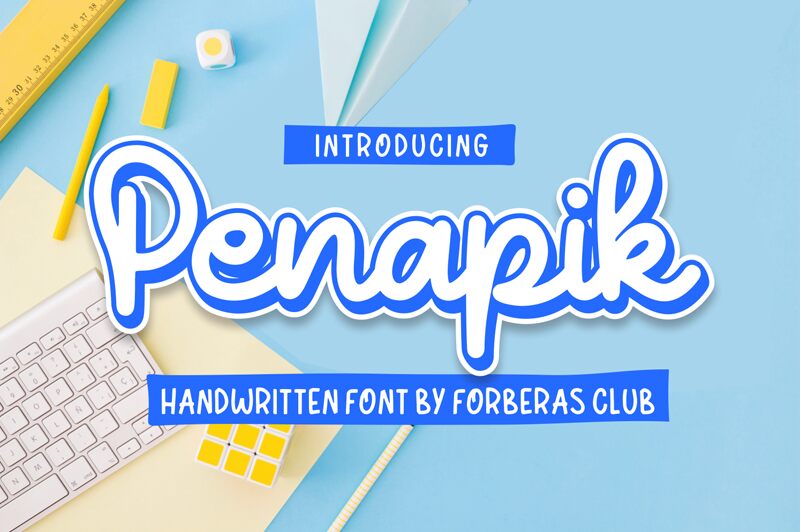
Penapik is a charming handwritten font that exudes a playful yet sophisticated vibe. Designed by Forberas Club, this semi-light typeface is perfect for projects that require a touch of whimsy and personality. From wedding invitations to social media graphics, Penapik adds a unique flair to any design. Its delicate strokes and curves make it suitable for feminine branding, while its clean lines ensure readability even at smaller sizes. Use Penapik for greeting cards, packaging designs, or even children's books - the possibilities are endless with this versatile font! Elevate your designs with Penapik today.
Penapik